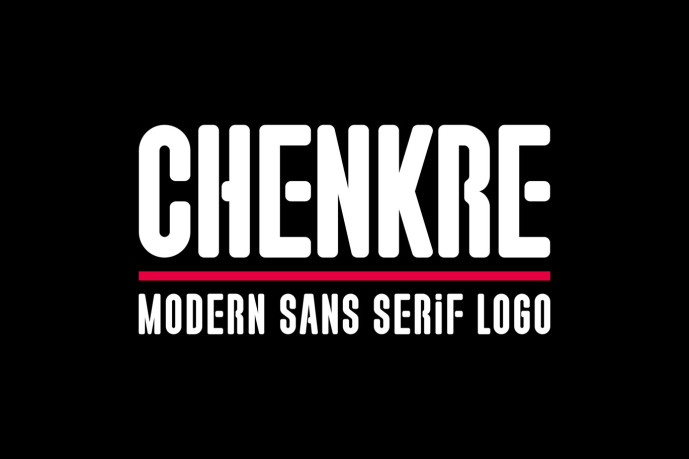
Introducing our new product Chenkre – Modern Sans Serif Font
Chenkre – Modern Sans Serif Font is a bold and authentic display font. The font is suitable for any branding project like logo, esport, and many more. outstanding in a wide range of contexts.